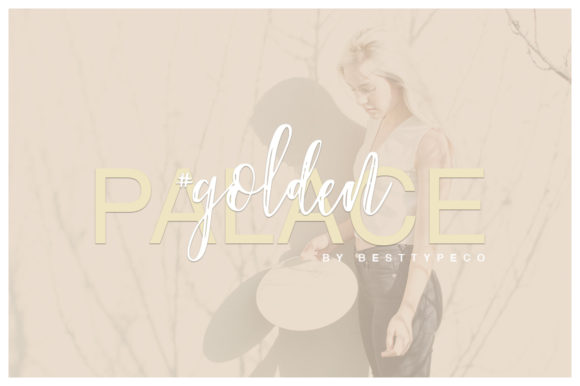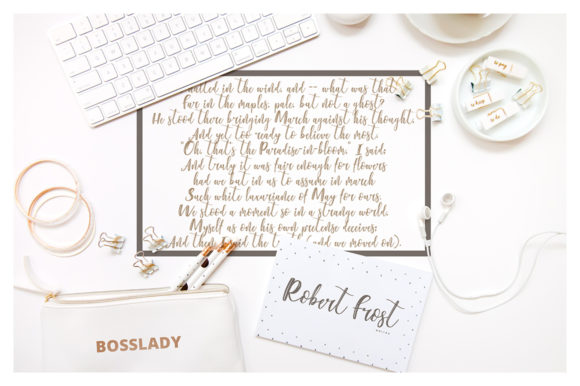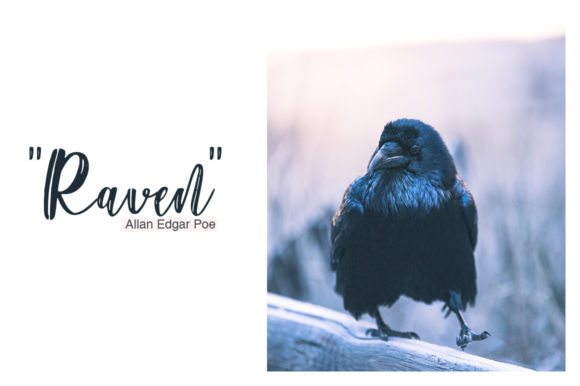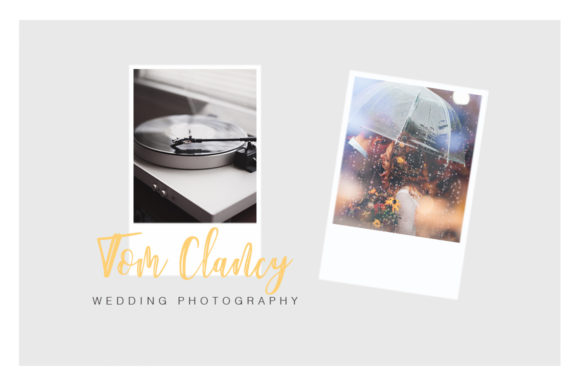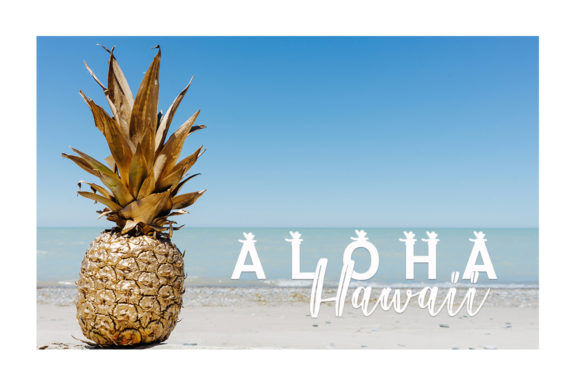
HomeScript FontsGolden Palace Font Script Fonts Golden Palace Font FacebookXPinterestWhatsApp Golden Palace Font Poster 2 Golden Palace Font Poster 3 Golden Palace Font Poster 4 Golden Palace Font Poster 5 About Golden Palace Font Golden Palace is a fresh and fun handwritten font that will make any design idea stand out. DOWNLOAD ON CREATIVE FABRICAThis font is sold and delivered by Creative Fabrica. Font Canyon may earn a commission if you buy through this link. People also explored Preety in Heart Font Bluelmin Ronald Font Matterie Font Melt Heart Font Rhizo Palmeras Font Diana Handlettering Font Santa Font Friday Font 351 0 TagsGolden Palace Font Previous articleSalim FontNext articleSalto Font LEAVE A REPLY Cancel reply Comment: Please enter your comment! Name:* Please enter your name here Email:* You have entered an incorrect email address! Please enter your email address here Website: Save my name, email, and website in this browser for the next time I comment. Personal Use Free Pinky Personal Use Free Read more about this font Bollado Personal Use Free Read more about this font Orchid Personal Use Free Read more about this font JVNE Smoothdron Personal Use Free Read more about this font BLOG Top 10 Handwritten Fonts That Elevate Your Designs Top 10 Handwritten Fonts That Will Elevate Your Designs Handwritten fonts bring a warm, personal touch to every creative project. Whether you're designing logos, invitations,... Transform Your Website: Elevate Your Typography with 7 Best Web Font Generators How to Cut Any Font on Cricut: Convert a Font to SVG (Free) Free vs Paid Fonts: Why Investing in Premium Fonts Is Worth It